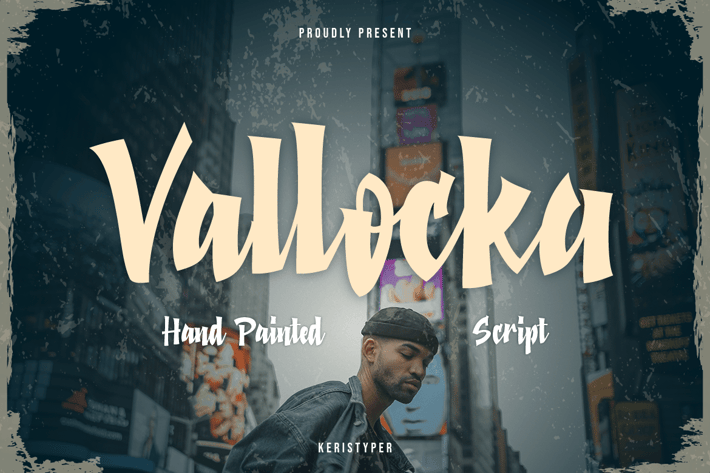
Vallocka Font
Introducing of our new product Vallocka, a hand painted made with brush markers into digital this font. This font is good for logo design, Social media, Movie Titles, Books Titles, short text even long text letters, and good for your secondary text font with the script, sans, or serif.
Standard Uppercase & Lowercase
Multilingual : ä ö ü Ä Ö Ü ß ¿ ¡
Alternate & Ligature